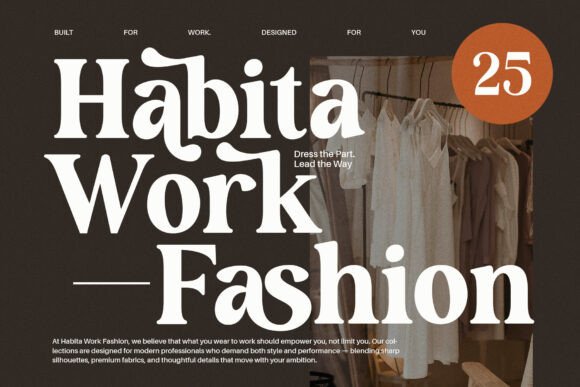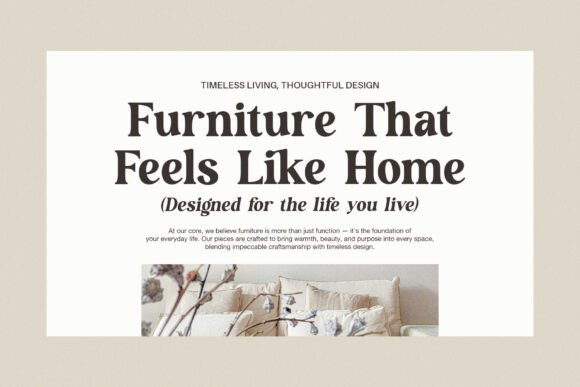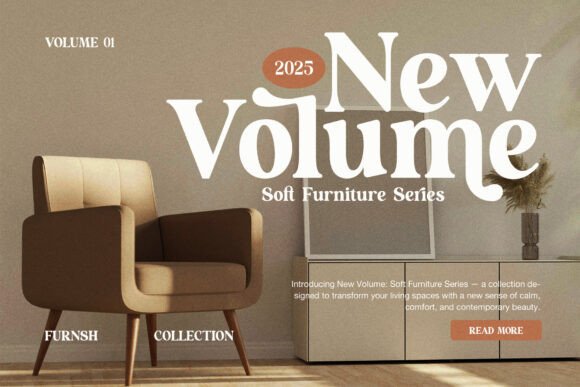
Introduction to Milgra Font
Milgra is a striking blend of graceful form and modern design, built to bring elegance, clarity, and sophistication to any visual project.
Characterized by soft curves, high contrast strokes, and delicate detailing, Milgra is a serif font that feels both timeless and fashion-forward What truly defines Milgra is its sculpted letterformsβ€”each glyph is meticulously balanced to offer a harmonious look, with gentle flared serifs and subtle angles that add a sense of movement and refinement.
Key Features of Milgra Font
Why Choose Milgra Font?
Milgra Font offers exceptional quality and versatility, making it a valuable addition to your design toolkit. Whether you’re creating for personal projects or commercial use, Milgra Font delivers professional results.